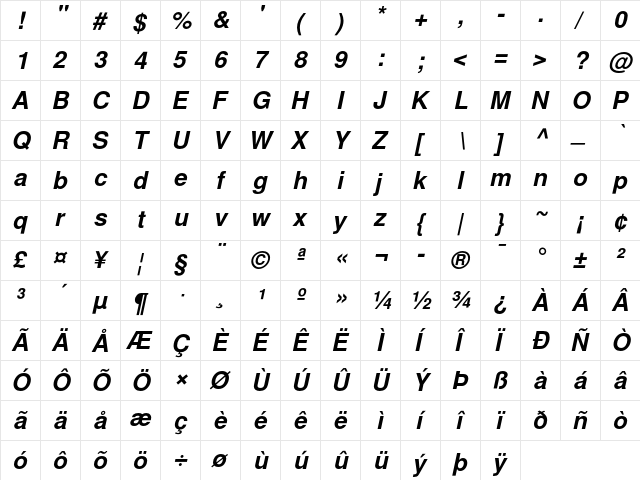
NimbusSanL Bold Italic Font Preview
| Foundry | (URW)++ Design & Development |
Design Context for NimbusSanL Typeface
NimbusSanL takes a measured approach to typography — its balanced proportions and neutral character make it a reliable workhorse for both digital and print work. Its italic angle brings a sense of urgency and motion to the letterforms. The heavy weight commands attention and anchors typographic hierarchies.
Pro Tip: Try NimbusSanL for annotation and caption copy alongside an upright companion — the contrast in angle creates a dynamic but ordered typographic system.